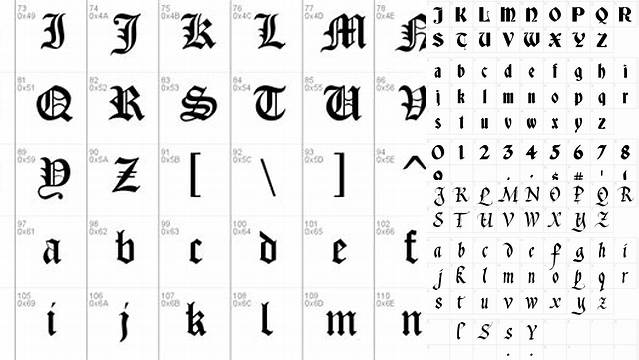
Gothic Fonts: Copy & Paste Guide For Instagram
Are you looking to spice up your Instagram posts with a touch of dark elegance? Do you want to add a unique and captivating flair to your captions and stories? Well, my friends, you've come to the right place! In this comprehensive guide, we'll dive deep into the fascinating world of gothic fonts and how you can easily copy and paste them to transform your Instagram presence. Forget about those same-old, boring fonts – we're about to unlock a realm of stylish typography that will make your content truly stand out.
What are Gothic Fonts?
So, what exactly are gothic fonts? Also known as blackletter or Old English fonts, gothic fonts are characterized by their bold, dramatic strokes, intricate details, and a distinct medieval feel. Think of the calligraphy you might see in old manuscripts or the lettering on vintage band posters – that's the essence of gothic typography. These fonts evoke a sense of mystery, history, and a touch of the macabre, making them perfect for adding a dramatic touch to your Instagram posts. Gothic fonts are a fantastic way to inject personality and visual interest into your content, setting you apart from the crowd. But why are they called gothic? The term “gothic” was initially used during the Renaissance era as a somewhat derogatory label for the architectural style prevalent during the Middle Ages, which was seen as “barbaric” compared to classical styles. This term was later applied to the writing style that accompanied the architecture, thus the name “gothic fonts”. Despite the initial negative connotation, gothic fonts have persisted through time and are now appreciated for their unique aesthetic qualities. They have found a home in various design fields, from book covers and logos to tattoos and, of course, social media.
The Appeal of Gothic Fonts on Instagram
Instagram is a visually-driven platform, so the fonts you use play a crucial role in how your content is perceived. Gothic fonts can instantly elevate your posts, adding a touch of sophistication and intrigue. They're perfect for a wide range of aesthetics, from dark and moody to edgy and alternative. Imagine using a gothic font for a Halloween-themed post, a band promotion, or even just to add a unique twist to your everyday captions. The possibilities are endless! Gothic fonts inherently carry a strong visual weight and presence. They command attention and can effectively communicate a sense of importance or gravity. This makes them ideal for highlighting key messages or creating a specific atmosphere in your posts. For instance, if you are sharing a quote or a statement, using a gothic font can add a layer of seriousness and impact to your words. Furthermore, the intricate and decorative nature of gothic fonts can also be employed to convey a sense of artistry and craftsmanship. If you are showcasing your creative work, such as photography, illustrations, or graphic designs, incorporating gothic fonts can complement your visual style and enhance the overall aesthetic appeal. The contrast between the traditional gothic style and the modern digital platform of Instagram can also create a striking visual effect, capturing the attention of your audience and leaving a lasting impression.
Finding the Perfect Gothic Font
Now, where do you find these fantastic fonts? The good news is, you don't need to be a graphic design whiz or purchase expensive software. There are tons of online resources that offer gothic font generators and copy-and-paste tools. These tools allow you to type in your text and instantly convert it into a variety of gothic styles. It's like magic, but without the pointy hats and bubbling cauldrons. Websites like LingoJam, FontGet, and many others provide a vast collection of gothic fonts that you can easily use. Simply type your desired text into the generator, and it will display your text in various gothic font styles. You can then copy and paste the generated text directly into your Instagram captions, bios, or stories. It’s a quick and painless process, allowing you to experiment with different styles and find the perfect fit for your content. However, it's important to keep in mind that not all gothic fonts are created equal. Some may be more legible than others, and some may better suit specific purposes. Therefore, it's essential to browse through the options and select a font that not only looks aesthetically pleasing but also communicates your message clearly. Consider the overall tone and theme of your Instagram feed when making your choice. A highly ornate and complex gothic font might be ideal for a dark and mysterious aesthetic, while a cleaner and more streamlined gothic font might be a better fit for a modern and minimalist vibe.
Top Websites for Gothic Font Generation
Let’s explore some of the top websites where you can find gothic font generators and copy-and-paste tools:
- LingoJam: This is a popular choice for its simplicity and wide range of font styles. You simply type your text in the left box, and the generated gothic fonts appear in the right box. It’s super user-friendly and provides a variety of options to choose from.
- FontGet: FontGet offers a vast library of fonts, including a dedicated section for gothic and blackletter fonts. You can preview how your text looks in each font before copying it, making it easier to find the perfect match.
- CoolSymbol: This website offers a variety of text tools, including a gothic font generator. It’s a straightforward tool that allows you to quickly convert your text into stylish gothic lettering.
- Instagram Fonts: Despite the name, this website isn't directly affiliated with Instagram, but it's a great resource for generating various fonts that are compatible with the platform. It includes a good selection of gothic styles and other decorative fonts.
These websites are excellent starting points for your gothic font adventures. Experiment with different generators and see which ones offer the styles you love the most. Don't be afraid to try out various fonts to see which one best complements your content and personal brand.
How to Copy and Paste Gothic Fonts on Instagram
Alright, you've found your perfect gothic font – now what? The process of copying and pasting these fonts onto Instagram is surprisingly simple. Here's a step-by-step guide:
- Head to your chosen font generator website.
- Type your text into the input box.
- Browse the generated fonts and select the one you like.
- Copy the generated text.
- Open Instagram and go to the caption, bio, or story where you want to use the font.
- Paste the text.
And that's it! You've successfully added a touch of gothic flair to your Instagram content. It's important to note that these fonts aren't actually changing the system font on Instagram. Instead, the generators are using special Unicode characters that resemble gothic lettering. This means that the fonts will appear correctly on most devices and platforms, but there might be slight variations in how they render depending on the device and operating system. So, always double-check how your text looks on different devices to ensure it maintains its intended aesthetic. Another thing to consider is readability. While gothic fonts can be visually striking, some of the more ornate styles might be challenging to read, especially in smaller sizes. Therefore, it's crucial to choose a font that balances aesthetics with legibility. If you're using a complex gothic font, consider using it sparingly, such as for headings or short phrases, and pair it with a simpler font for the body of your text. This will ensure that your message is both stylish and easy to understand.
Pro Tips for Using Gothic Fonts on Instagram
Now that you know the basics, let's talk about some pro tips for using gothic fonts effectively on Instagram:
- Use them sparingly: Gothic fonts are attention-grabbing, so a little goes a long way. Overusing them can make your content look cluttered and overwhelming. Instead, use them strategically to highlight key words, phrases, or headings. Think of gothic fonts as a spice – a pinch can enhance the flavor, but too much can ruin the dish. Applying this principle to your Instagram content means using gothic fonts to draw attention to specific parts of your text, such as a powerful quote or a call to action. Reserve them for the most impactful elements of your message to maximize their visual effect.
- Consider your overall aesthetic: Make sure the gothic font you choose complements the overall theme and style of your Instagram feed. If your feed is light and airy, a heavy, ornate gothic font might look out of place. Conversely, if your feed has a darker, more edgy vibe, a gothic font can be a perfect fit. Consistency is key to creating a cohesive and visually appealing Instagram presence. When selecting a gothic font, consider the colors, filters, and overall mood of your posts. A gothic font with sharp, angular lines might complement a minimalist aesthetic, while a more flowing and decorative gothic font might be better suited for a vintage or romantic theme.
- Ensure readability: As mentioned earlier, readability is crucial. Choose a gothic font that is clear and easy to read, especially on smaller screens. Test it out on different devices to make sure it looks good across the board. While gothic fonts are known for their intricate details, these details can sometimes compromise legibility, especially when viewed on mobile devices. Opt for fonts with clean lines and sufficient spacing between letters to ensure that your message is easily readable. If you are using a particularly ornate font, consider increasing the font size or using it only for shorter pieces of text.
- Mix and match (carefully): Don't be afraid to experiment with combining gothic fonts with other font styles. However, do so with caution! A well-chosen pairing can create a visually interesting contrast, but a mismatched combination can look jarring. A good rule of thumb is to pair a bold gothic font with a simpler, more modern font for the body of your text. This creates a balanced look that is both stylish and readable. When mixing fonts, pay attention to the overall hierarchy of your text. Use the gothic font for the most important elements, such as the title or headings, and use a simpler font for the supporting text. This will guide the viewer's eye and create a clear and engaging visual experience.
Let's also discuss some common pitfalls to avoid when using gothic fonts on Instagram:
- Overdoing it with different fonts: Sticking to a limited number of fonts (ideally two or three) will create a more cohesive and professional look. Using too many fonts can make your content look chaotic and disorganized.
- Choosing fonts that are difficult to read: If your followers can't read your text, they're not going to engage with your content. Always prioritize readability.
- Ignoring your brand identity: Your font choices should align with your overall brand identity. If your brand is playful and lighthearted, a dark and serious gothic font might not be the best fit.
By avoiding these common mistakes, you can ensure that your use of gothic fonts enhances, rather than detracts from, your Instagram presence.
Level Up Your Instagram with Gothic Fonts
So there you have it, folks! A complete guide to using gothic fonts to elevate your Instagram game. With the help of online font generators and a little bit of creativity, you can easily add a touch of dark elegance to your posts and stories. Remember to use these fonts strategically, prioritize readability, and stay true to your brand aesthetic. Now go forth and create some captivating content that will leave your followers spellbound!
By incorporating gothic fonts into your Instagram strategy, you can create a unique visual identity that sets you apart from the crowd. These fonts offer a blend of traditional charm and modern appeal, allowing you to express your personality and creativity in a captivating way. So, experiment with different styles, find the fonts that resonate with you, and start crafting content that truly reflects your vision. With a little practice and a keen eye for design, you can transform your Instagram feed into a visual masterpiece that leaves a lasting impression on your audience. Whether you're aiming for a dark and mysterious vibe, a vintage aesthetic, or simply want to add a touch of drama to your posts, gothic fonts provide a versatile and powerful tool to enhance your storytelling and engage your followers. So, embrace the elegance of gothic typography and let your Instagram content shine with a touch of timeless style.